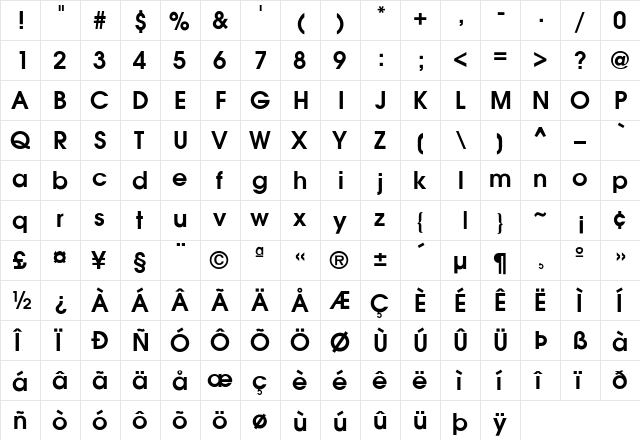
Gardenzi - Demi Regular
Gardenzi - Demi takes a measured approach to typography — its balanced proportions and neutral character make it a reliable workhorse for both digital and print work.